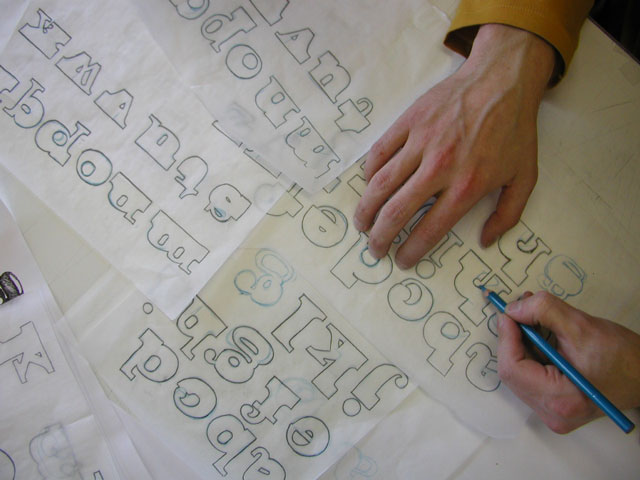
![]() ![]() ![]() the fatter the better basic info : presentation half way : ![]() Assignment Study the ultimate boldness of a type. Make the fattest type in the world. How fat can you go? The fatter the better! Process We found out that the blackness of fatness is about ratios. A bold type is bold only when it's compared to the regular cut. How about really fat one? A black square does not look fat or heavy, but when you have some small details which you can compare the huge black mass, the heaviness can be accomplished. So it's all about contrast here. Our starting point was claredon. The next task was to find which parts of the letters could be made fatter. We did not want take the obvious route to just make the wider parts of the letters even more fatter or just to expand the whole letter. Instead we decided to figure out the essential parts of the letters and expand just those. That way the nonessential parts could be expanded to such extremes that they are not recogniseable any more. Finding the essential parts could have been the theme for the whole workshop so we used and existing implementation called Canyon. Also we found out that we could make two versions, upper fat and lower fat by just making the opposite parts fatter. The resulting typeface at this point was very ugly and not as fat as it could have been. We decided the make the type better and fatter on the second part of the workshop. The first version was used as skeleton for the new fatter one. After all it was a good decision, since some usual problems got solved making the first version. Final Solution Even the first type was based on Clarendon we found out that I would be more interesting to use the new type just as a starting point and let the design find it's shape freely. From the early days of the workshop we had this idea that we absolutely should bake the letters at some point. The final type is a fat font with very tiny inner forms. The idea of baking indirectly influenced the forms of the letters absolutely, even it was not studied before the final letters were done in Fontographer. The minimun size to use the type is 180 points. Below that the inner forms are very unpleasant. The type works best on very large sizes and short words. More than six letters is way too much. With slight modifications the type could be applied in to a baking mold. download booh_fat_sheet.pdf ![]()